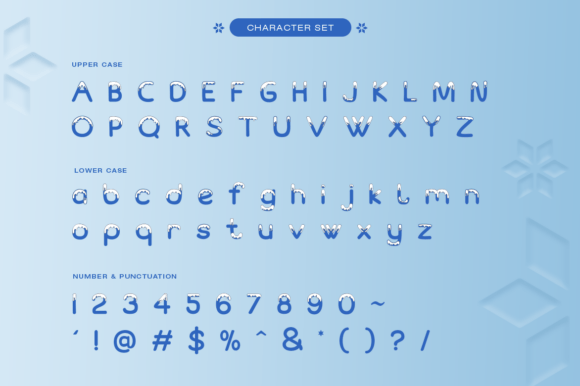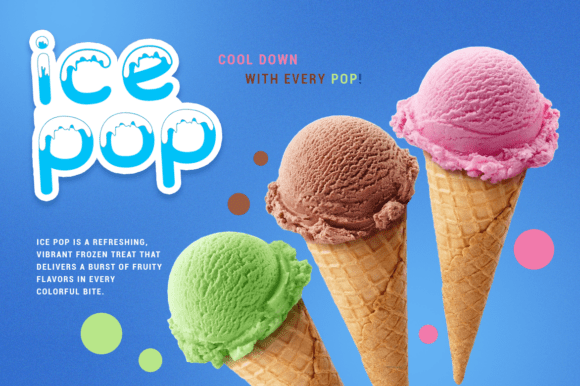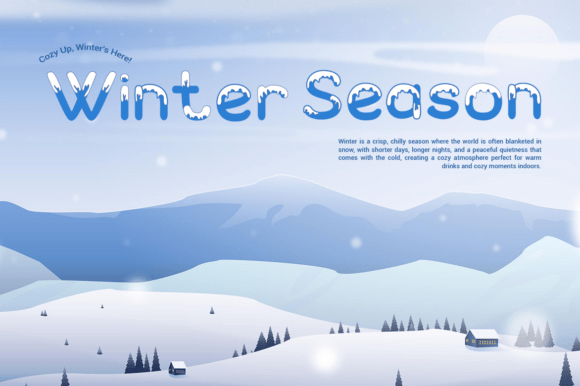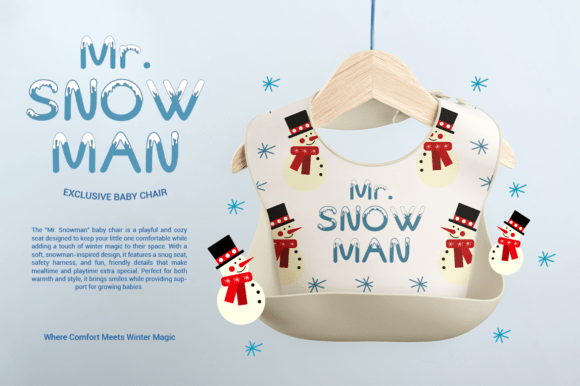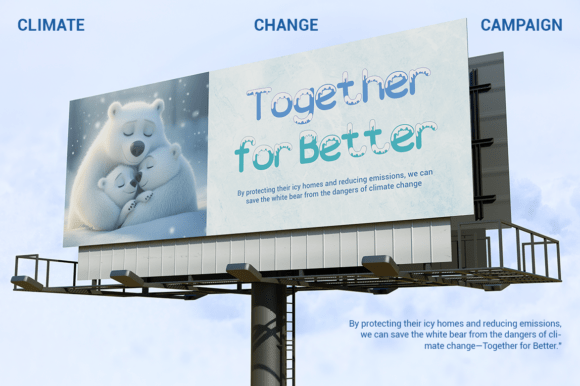
Introducing Flurrypop Font: The Sweet and Refreshing Typeface
Are you tired of using the same old fonts for your designs? Look no further than Flurrypop Font, a fun and vibrant display font that’s sure to make your projects stand out. Inspired by melting ice cream and frosty textures, Flurrypop features rounded letterforms with dripping accents that create a fresh and playful look.
The Inspiration Behind Flurrypop
Flurrypop Font is the perfect blend of sweet dessert vibes and cool winter elements. The font’s creator was inspired by the colorful and whimsical world of ice cream and frosty treats, and sought to capture that magic in a typeface. The result is a font that’s both energetic and eye-catching, with a unique personality that’s sure to delight designers and crafters alike.
Design Features of Flurrypop Font
Flurrypop Font is designed with bold shapes for strong visual impact, while maintaining readability. The font includes complete uppercase, lowercase, numerals, and punctuation, making it a versatile choice for a wide range of design projects. The rounded letterforms and dripping accents give the font a playful and carefree feel, while the bold shapes ensure that it remains clear and easy to read.
Flurrypop Font is a dream come true for designers and crafters looking to add a touch of fun and whimsy to their projects. Whether you’re working on a logo, a poster, or a digital project, Flurrypop is the perfect choice. The font’s unique blend of sweet and cool elements makes it ideal for designs that require a bit of personality and flair.
What You Can Use Flurrypop Font For
Flurrypop Font is a versatile typeface that can be used for a wide range of design projects, including:
- Logos and branding: Flurrypop’s bold and playful design makes it perfect for logos and branding projects that require a bit of personality.
- Posters and flyers: The font’s large size and clear readability make it ideal for posters and flyers that need to grab attention.
- Digital projects: Flurrypop Font is perfect for digital projects, such as social media graphics, website headers, and more.
- Crafting and DIY projects: The font’s whimsical design makes it a great choice for crafting and DIY projects, such as scrapbooking, card making, and more.
Why Choose Flurrypop Font?
So why choose Flurrypop Font for your next design project? Here are just a few reasons:
- Unique and eye-catching design: Flurrypop Font is a one-of-a-kind typeface that’s sure to make your projects stand out.
- Versatile: The font includes complete uppercase, lowercase, numerals, and punctuation, making it a versatile choice for a wide range of design projects.
- Easy to read: Despite its bold and playful design, Flurrypop Font remains clear and easy to read, even at large sizes.
- Fun and whimsical: The font’s sweet and cool elements make it perfect for designs that require a bit of personality and flair.
In conclusion, Flurrypop Font is a fun and vibrant display font that’s perfect for designers and crafters looking to add a touch of whimsy to their projects. With its unique blend of sweet dessert vibes and cool winter elements, Flurrypop is sure to make your designs stand out. Whether you’re working on a logo, a poster, or a digital project, Flurrypop Font is a versatile and eye-catching choice that’s sure to delight.